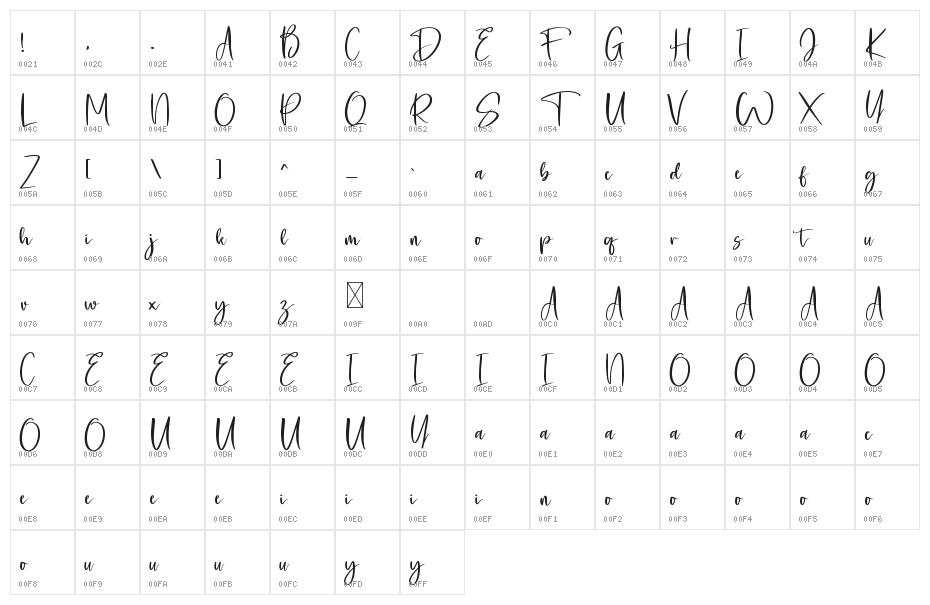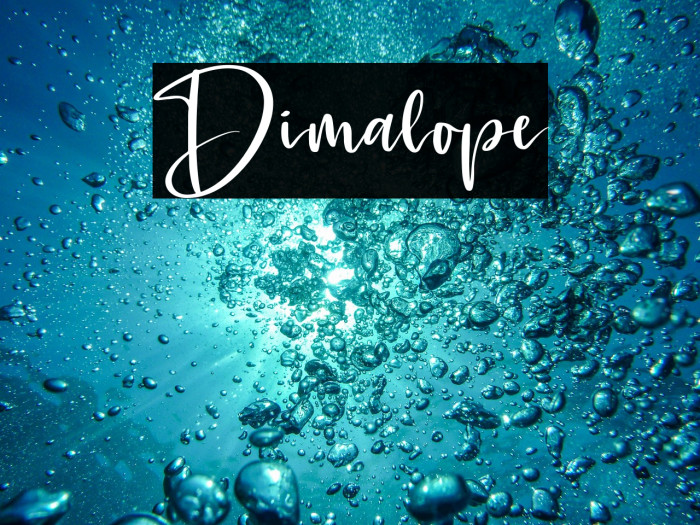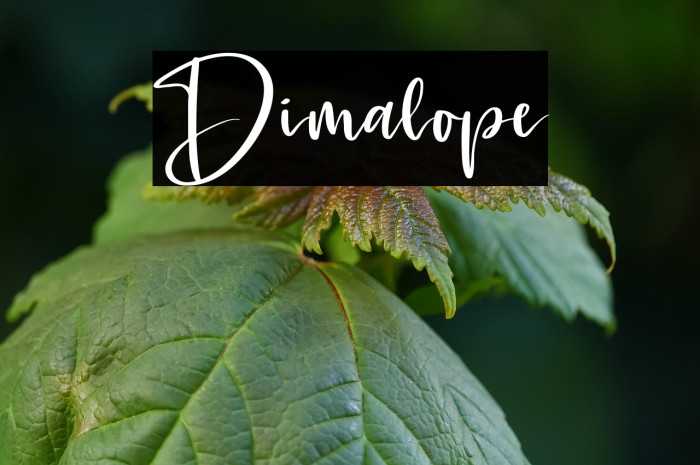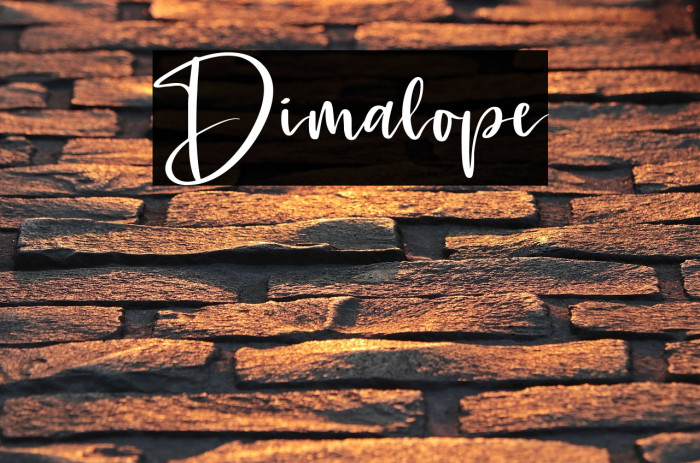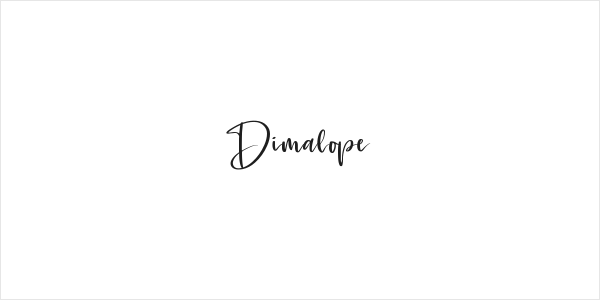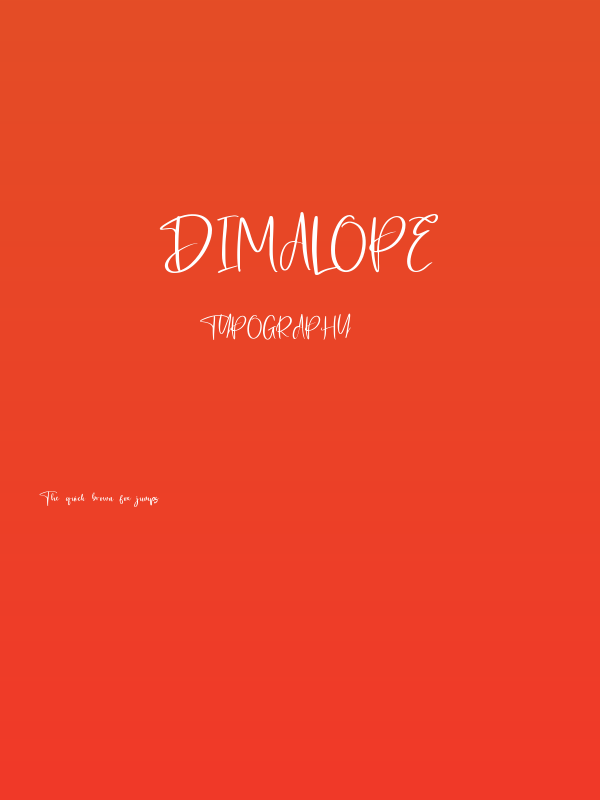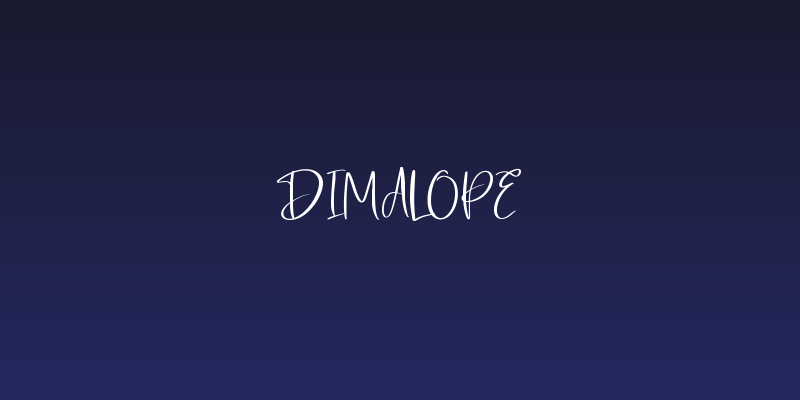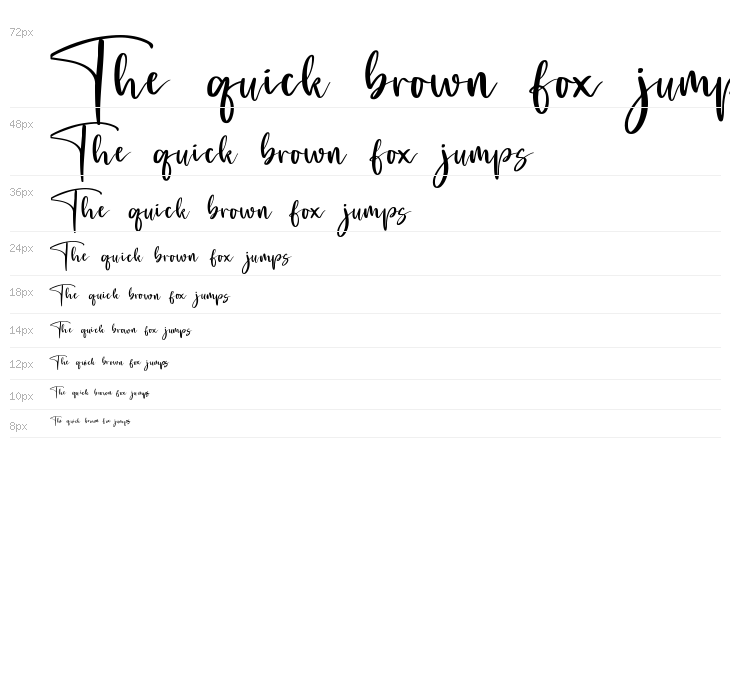
Dimalope Font
Dimalope Description
This font features a dynamic and expressive handwritten style, characterized by its fluid and flowing letterforms. The uppercase letters exhibit a playful yet elegant flair, with varying stroke widths that add a sense of movement and energy. The lowercase letters maintain a cohesive look, with smooth curves and a slightly whimsical touch. The font includes a mix of both uppercase and lowercase letters, along with a selection of special characters, making it versatile for various design needs. Its overall appearance is both modern and artistic, suitable for projects that require a personal and creative touch.